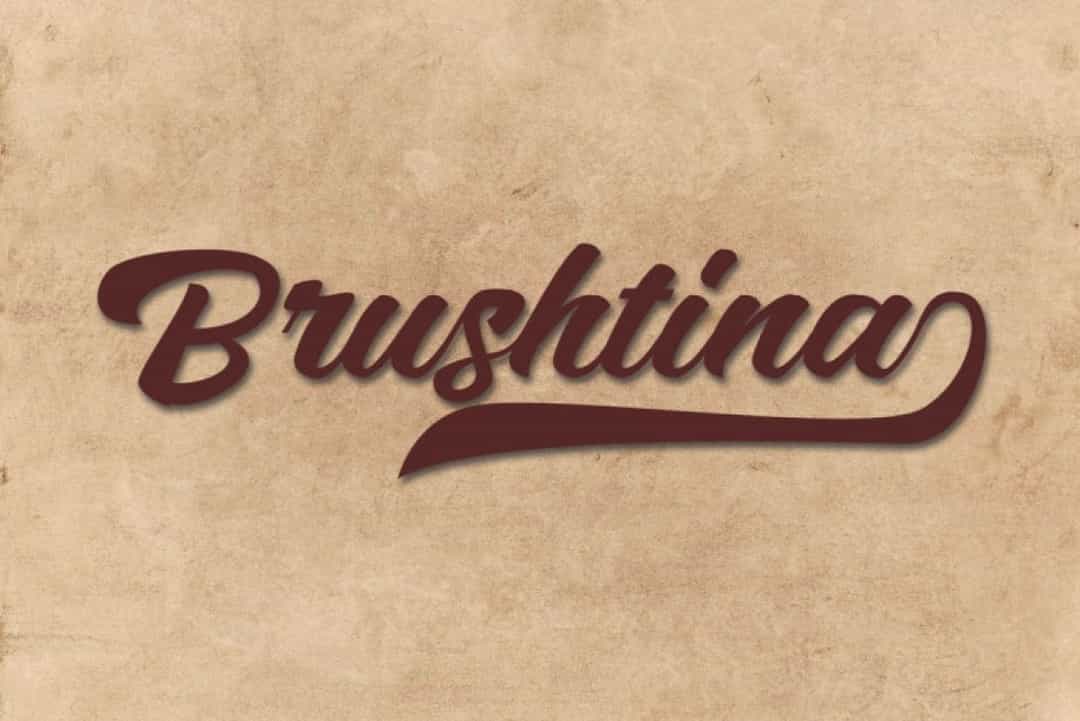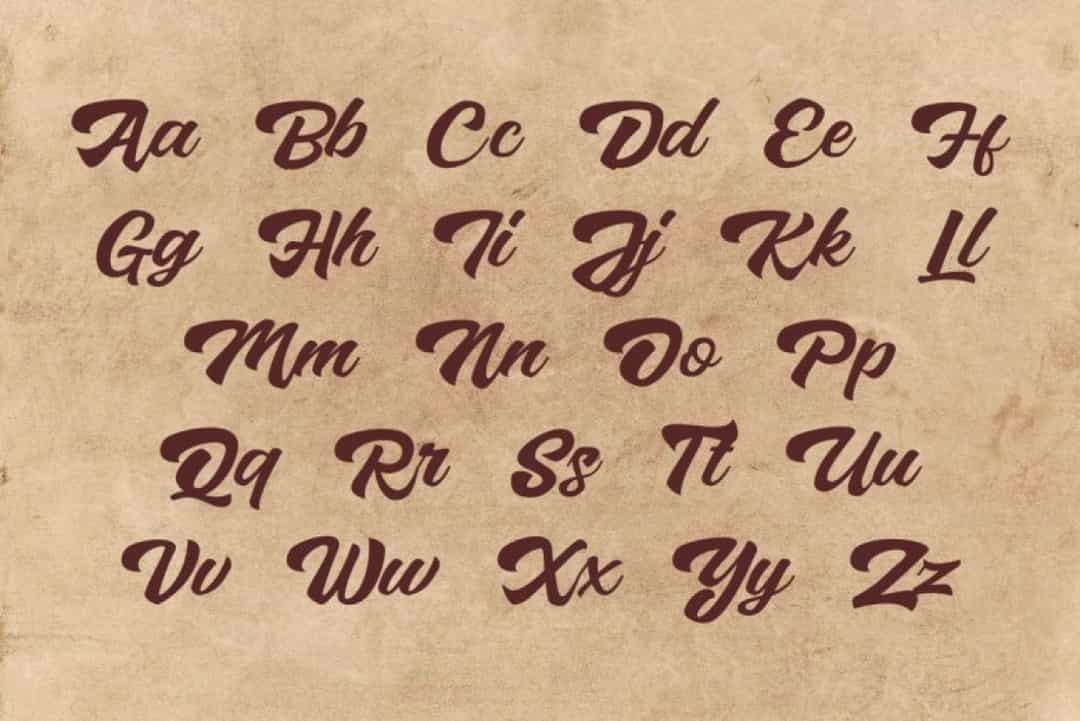
Brushtina Brush Font is an impressive typographical masterpiece that can take your designs to new heights. Crafted by hand, its hand-made font embodies sophistication and artistic style which make it suitable for various artistic endeavors.